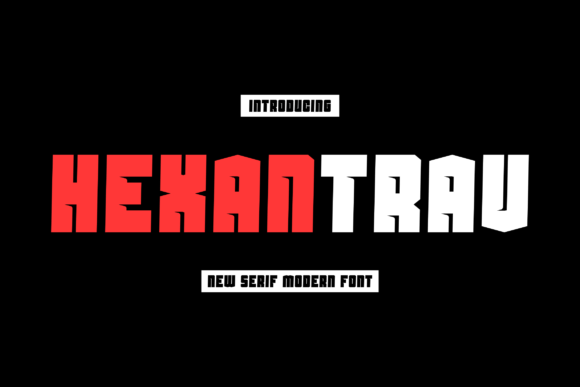
Introducing Hexantrav Font – An Avant-Garde Display Font That Will Revolutionize Your Branding.
In a world saturated with monotony, Hexantrav Font emerges as a beacon of originality, a typographic masterpiece that transcends the boundaries of conventional design. Crafted by the visionary font artist kalingga.albert, this modern serif font exudes boldness, authenticity, and an unwavering commitment to excellence.
Hexantrav Font isn't just a collection of letters; it's a gateway to a world of limitless creative possibilities. Whether you're an ambitious entrepreneur seeking to establish a brand identity that resonates, a passionate designer yearning for a font that embodies strength and sophistication, or a tech enthusiast seeking the perfect font to represent your cutting-edge venture, Hexantrav Font is your muse, your creative companion.
With its sharp angles and commanding presence, Hexantrav Font demands attention, leaving an indelible mark on your audience's minds. Its carefully crafted curves and meticulously executed details evoke a sense of luxury and refinement, elevating your designs to new heights of sophistication.
Hexantrav Font is the epitome of versatility, seamlessly adapting to a myriad of branding projects. Envision your logo adorned with the confident strokes of Hexantrav Font, conveying authority and trustworthiness to your clients. Picture your t-shirt designs infused with the vibrant energy of Hexantrav Font, captivating the attention of fashion-forward individuals.